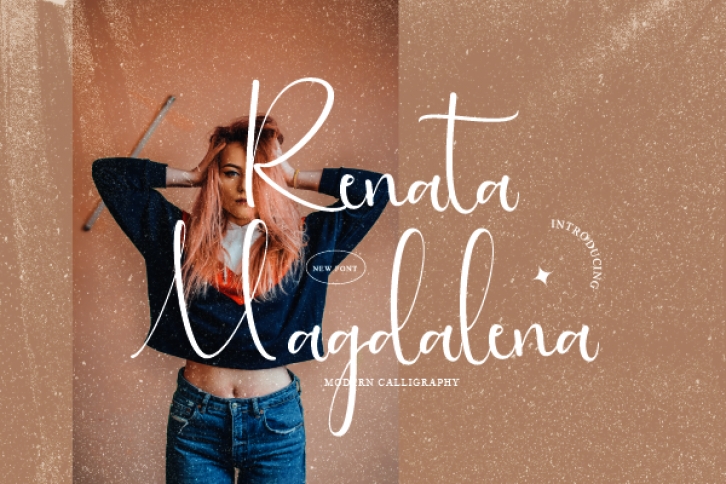
Renata Magdalena is a sweet and friendly handwritten font. Its natural and unique style makes it incredibly fitting to a large pool of designs. The only limit is your imagination!